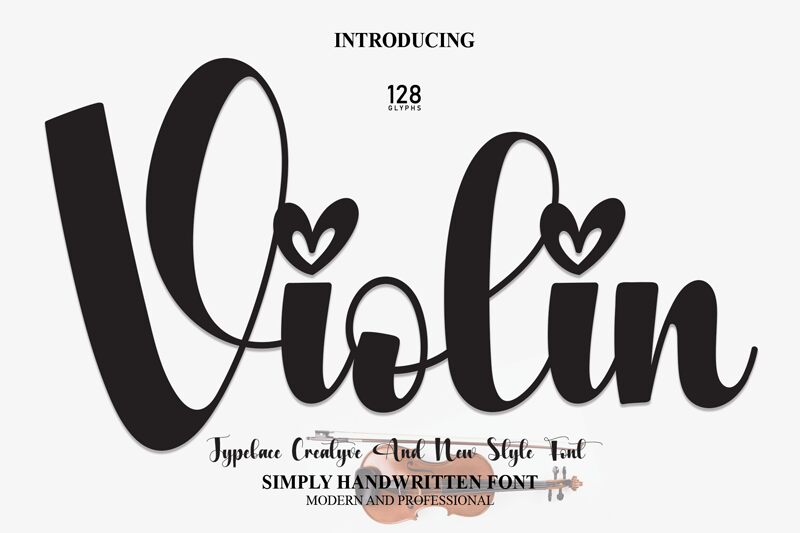
Violin
Violin, penned by the imaginative Scratchones, embodies the personal touch of a handwritten note with the bold confidence of a crafted script. This font dances on paper like a bow on strings, offering an air of casual elegance to any creative endeavor.
Its versatile style makes it an ideal choice for designers aiming to infuse warmth and personality into their work—be it whimsical wedding invitations, bespoke stationary art, or captivating social media content. Let Violin orchestrate your next design project with its harmonious balance of playful charm and bold statement.
The latest style letters are perfect for wall displays, wedding invitations, social media post logos,
advertisements, product packaging, product designs, labels, photography, watermarks, invitations, stationery, and any project that requires taste handwriting.